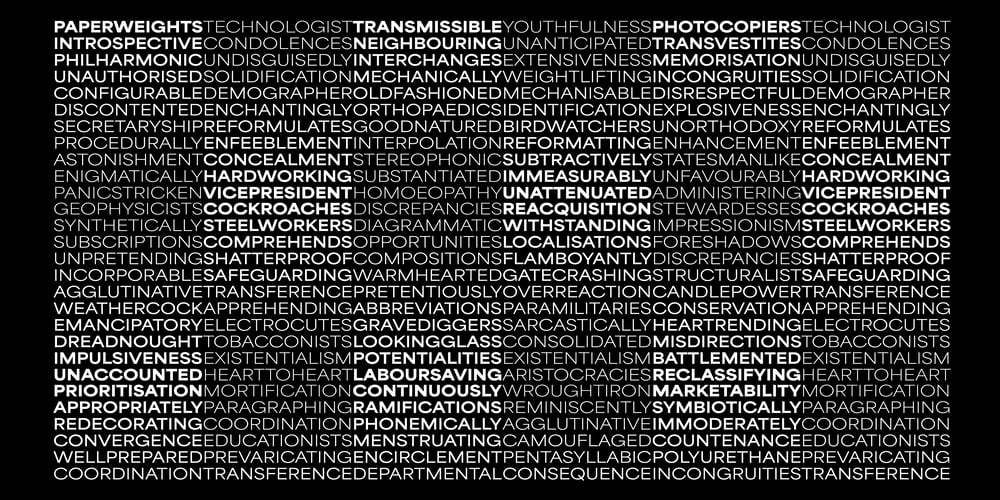
Area Font Family was designed by Matthieu Salvaggio and published by Blaze Type. Area contains 175 styles and family package options. Area is a variable geometric font family of 176 fonts that takes inspiration from architecture. Revolving around two width: Normal and Extended, matching italics. Area comes in three axis and six total styles: Compressed, Normal, Extended and Inktrap versions for each and matching italics. Taking full advantage of the variable technology in order to bring a powerful font system. Like any piece of architecture, the design process of Area started with a stable modular geometrical structure. Once the foundations are laid, its envelope slowly unfolds into a more quiet neogrotesque robe, offering a solid base for any reading experience thanks to its smooth grey. Far from being ornamental, Area inktraps have been planned from A to Z to offer the assurance that even in situations that are trickier and require the use of smaller text, everything will remain steady as steel.